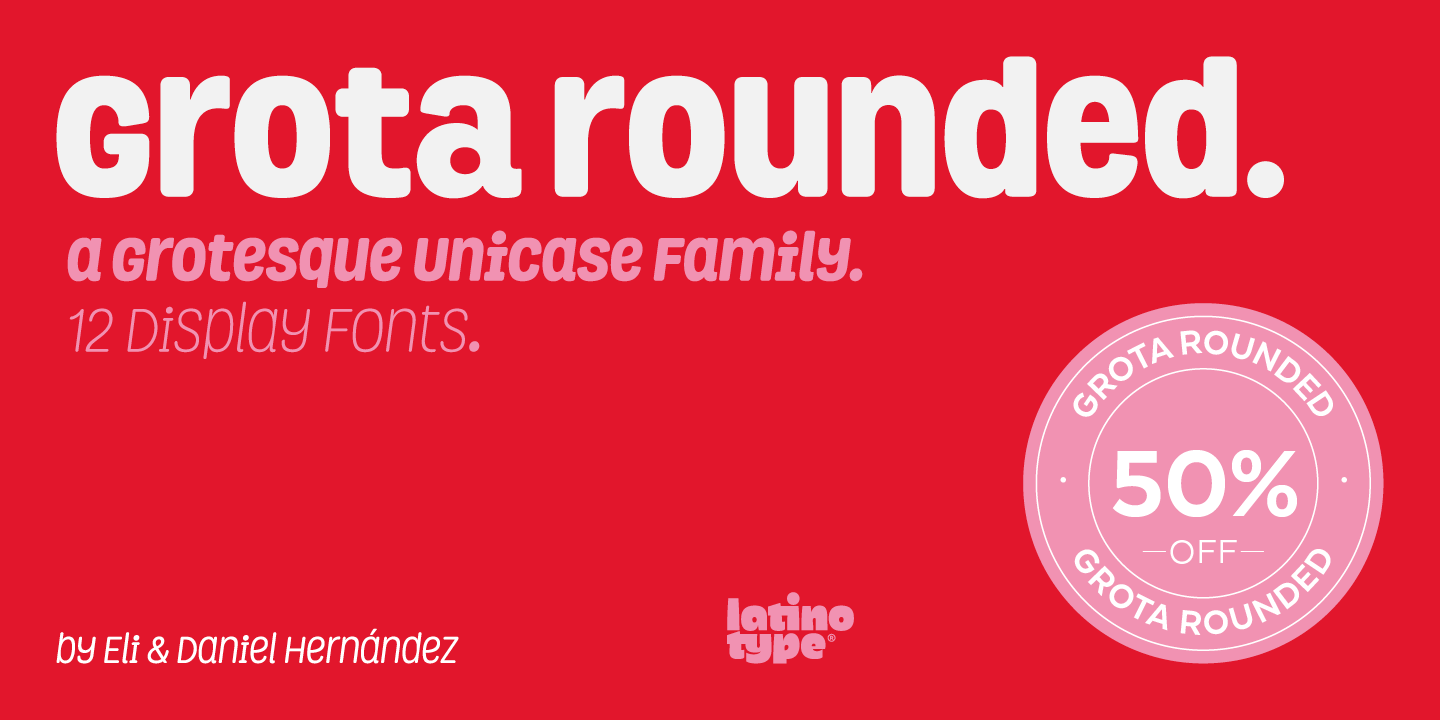
Grota Rounded Family (12 fonts)
Grota Rounded is classified as a grotesque unicase. It has six weights ranging from thin to black with true italics. The design is ideal for print or the web; logos, brands, magazines, headlines, books. etc.
OpenType features: Ligatures, Alternates